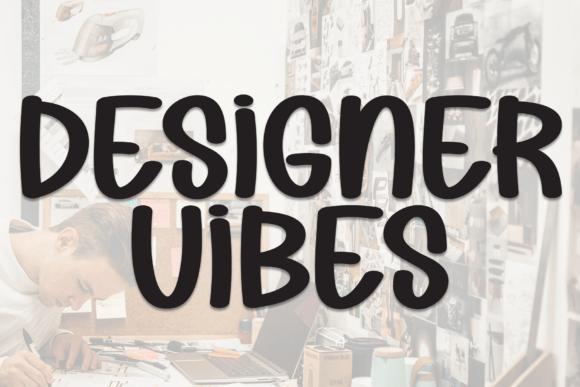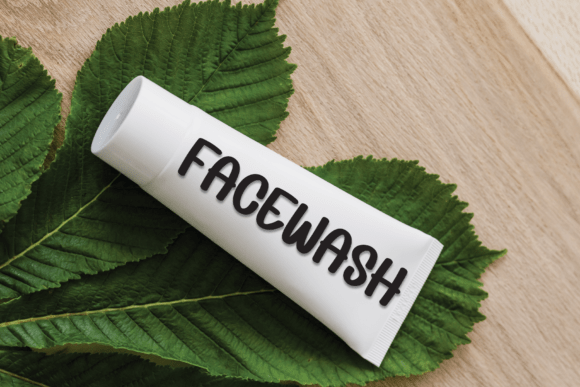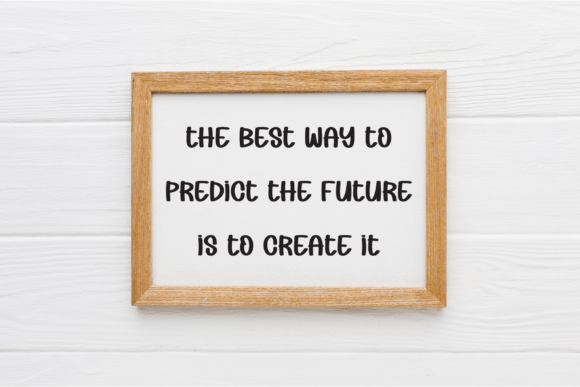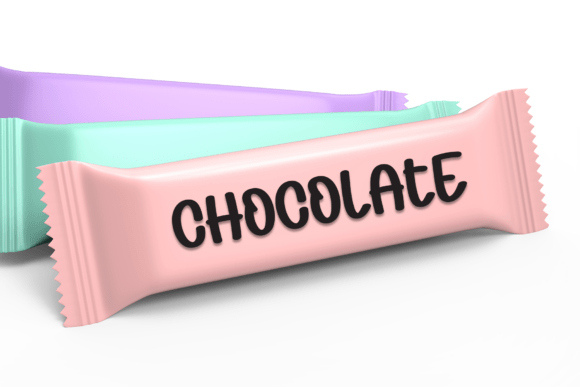
Designer Vibes Font
About the Designer Vibes Font
Introducing the Designer Vibes Font, a beautifully crafted typeface designed to elevate your creative projects. Designer Vibes is a casual and neat display font that radiates a fresh, friendly vibe. With clean lines and a relaxed structure, it’s perfect for packaging, posters, and social media graphics. The approachable design adds charm and clarity to projects while maintaining a polished appearance.
Designer Vibes excels in headlines, short taglines, and logos where its friendly yet polished personality shines. It’s ideal for brands targeting a young, approachable audience, such as cafes, boutiques, or lifestyle products. Avoid using it for large blocks of body text or UI elements; its display nature makes it less legible for extended reading.
Pairing Designer Vibes with a clean sans-serif like Open Sans for body copy creates a balanced contrast. For a more playful feel, consider pairing it with a rounded geometric sans-serif. A delicate script font could add a touch of elegance to invitations or packaging designs using Designer Vibes as the headline.
The font’s overall personality is best described as cheerful and modern, conveying approachability without sacrificing sophistication. This makes it a versatile choice for projects needing a friendly yet professional feel.
Designer Vibes Font Usage Examples
Designer Vibes Font Example